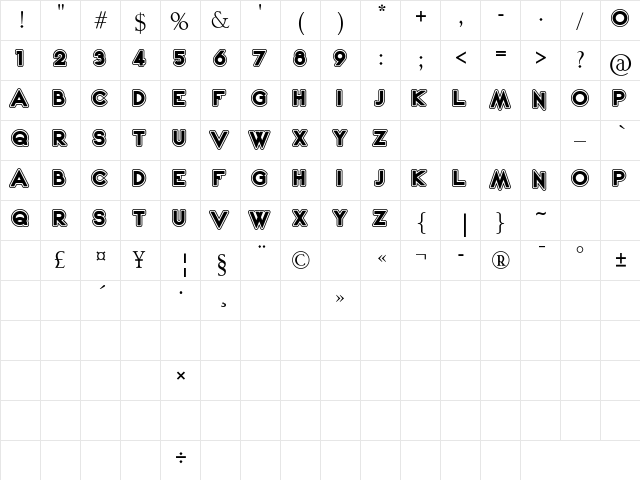
2020 Outline Fortune Kei Regular
Design Context for 2020 Outline Fortune Kei Typeface
2020 Outline Fortune Kei is built around its visual character rather than neutral utility — its distinctive forms are designed to make an impression at display sizes.
Font Pairing: Pair with a clean neutral sans-serif for body copy to let 2020 Outline Fortune Kei's character lead without overwhelming the composition.
Pro Tip: Use 2020 Outline Fortune Kei exclusively at display sizes — it was designed to be seen, not read at length. Let a neutral companion handle body copy.